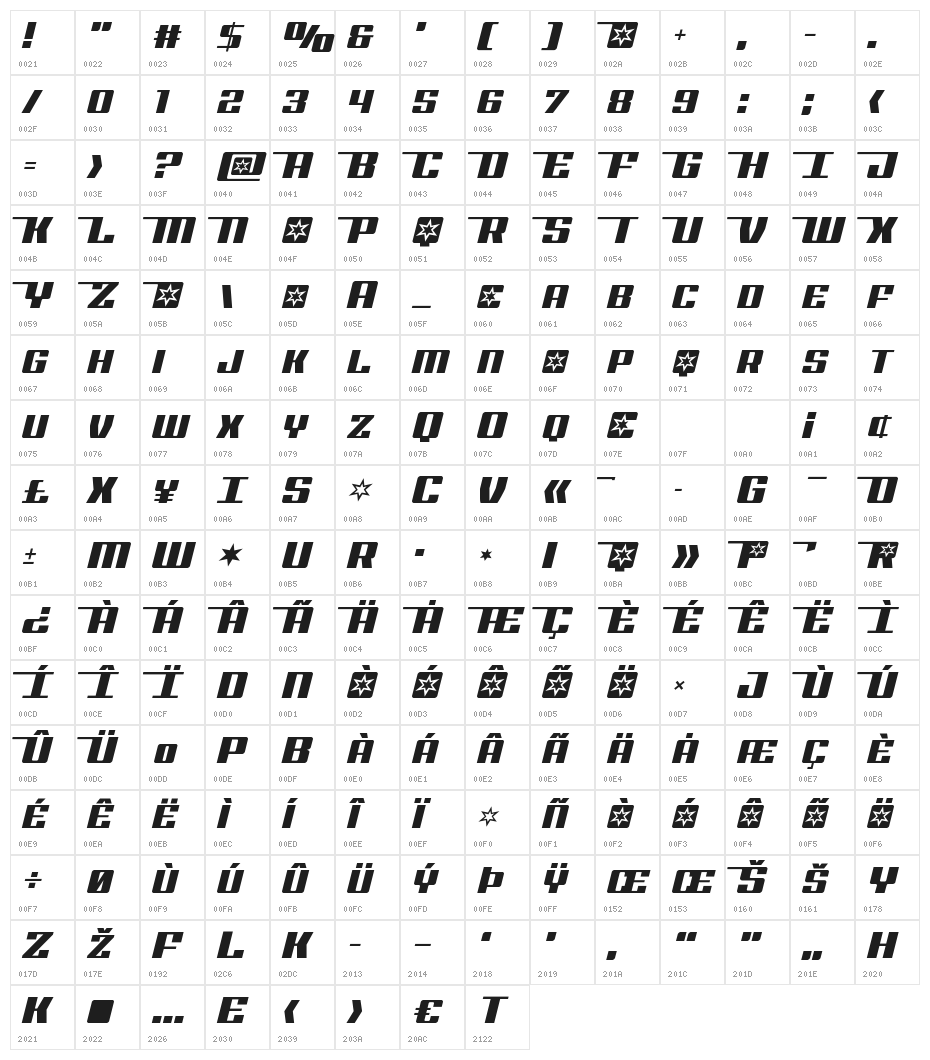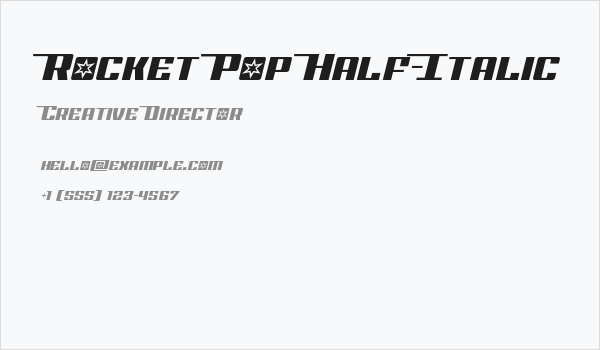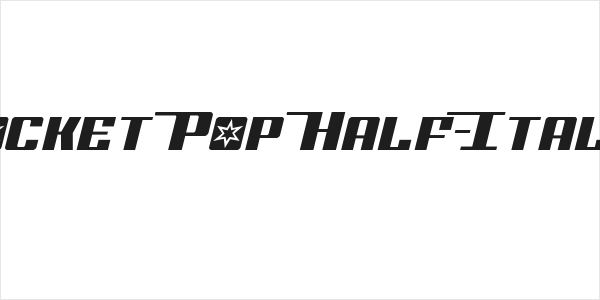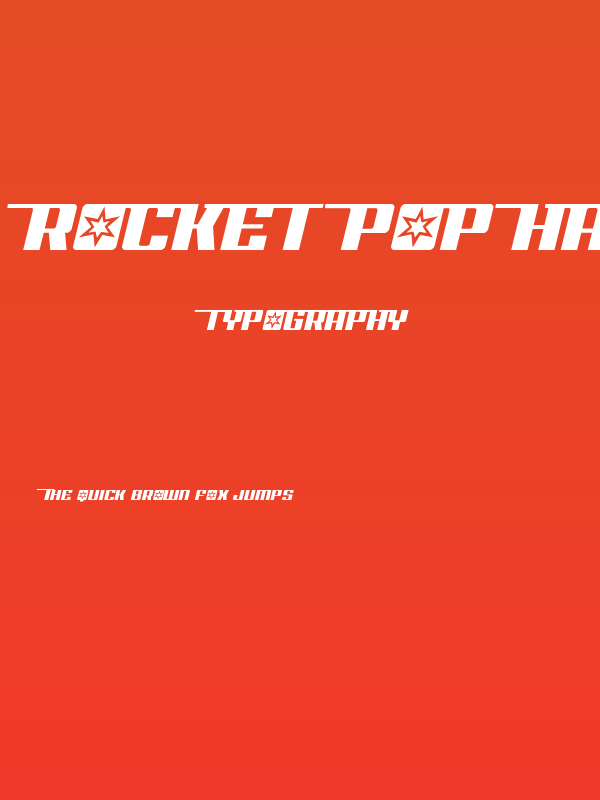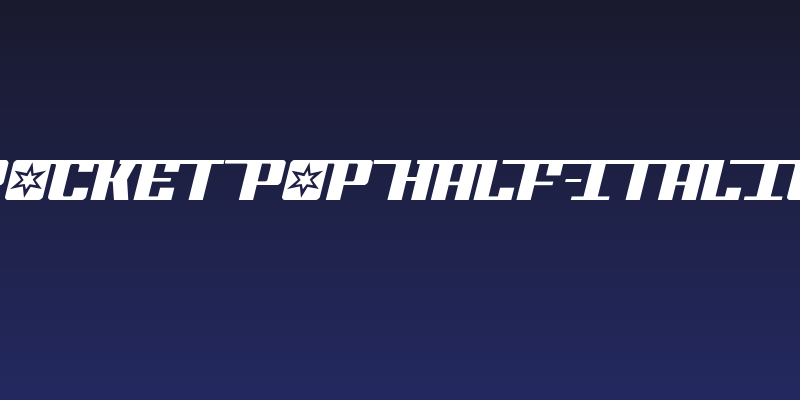
Rocket Pop Half-Italic Font
Rocket Pop Half-Italic Description
This font features a bold and dynamic design with a futuristic flair. The uppercase letters are characterized by sharp angles and a slight italic slant, giving them a sense of movement and energy. The inclusion of star motifs within certain letters adds a unique, decorative touch. The numerals and special characters maintain the bold, angular style, ensuring consistency across the typeface. This font is highly stylized, making it ideal for attention-grabbing headlines or logos that require a modern and edgy appearance.
| Overall Style | Futuristic, Decorative |
| Proposed Projects | Ideal for sci-fi themed posters, video game titles, branding for tech companies, or any project needing a modern, dynamic look. |